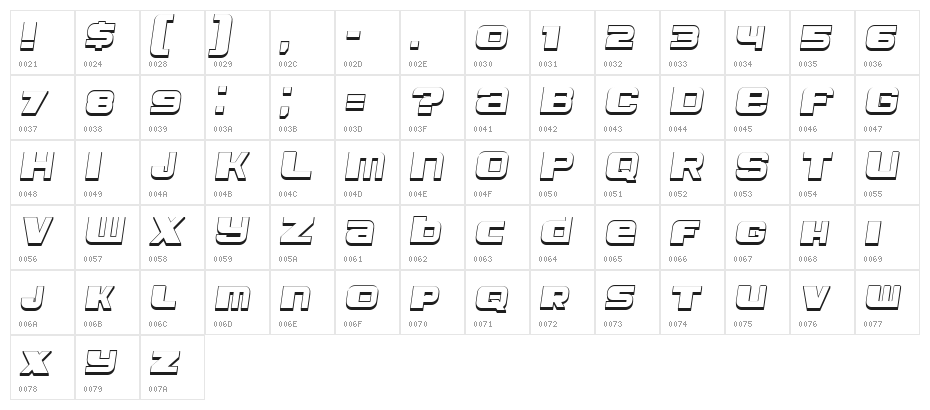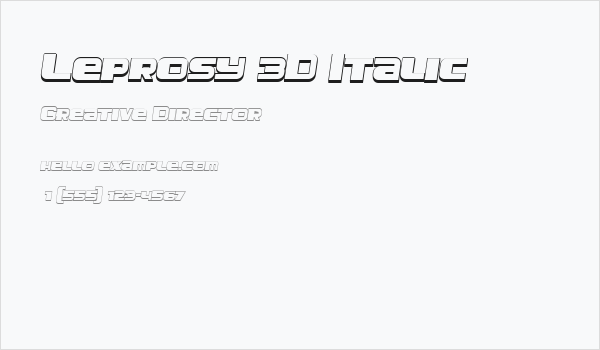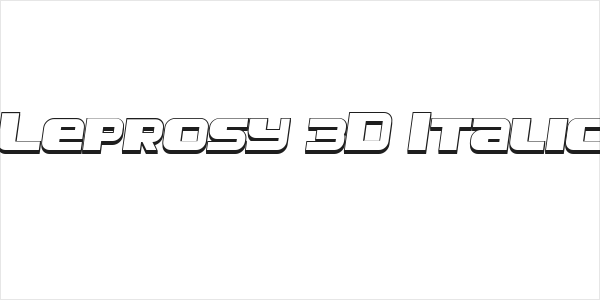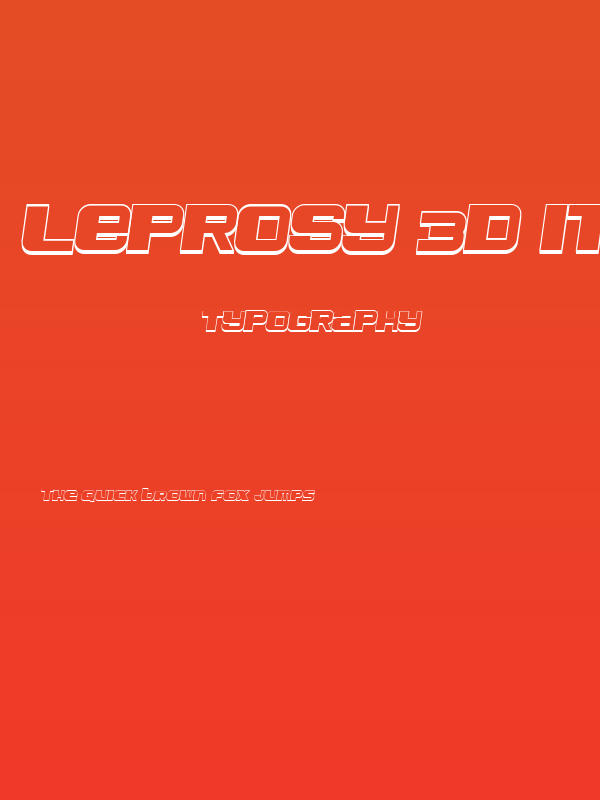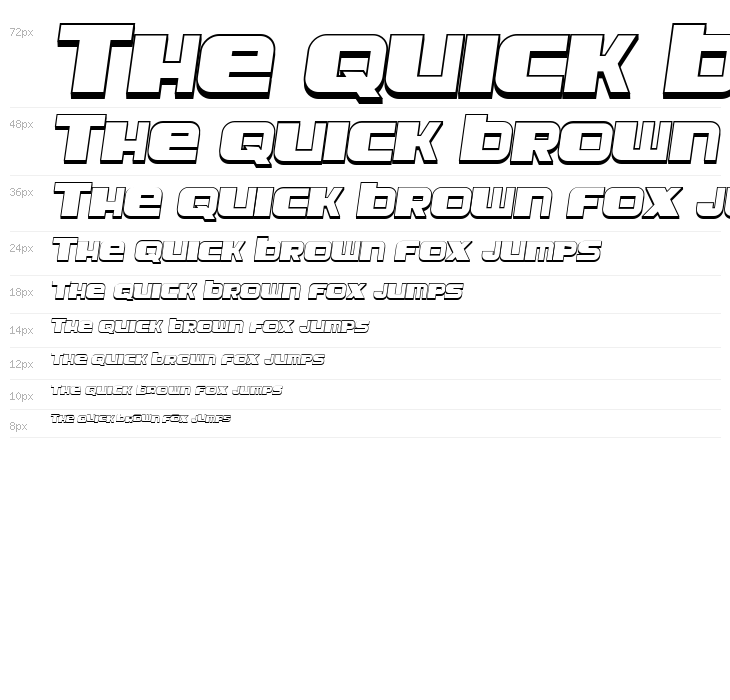
Leprosy 3D Italic Font
Leprosy 3D Italic Description
This font features a bold, three-dimensional appearance with a distinct italic slant, giving it a dynamic and futuristic look. The characters are outlined with a shadow effect that enhances the 3D illusion, making each letter appear as if it is popping off the page. The design is clean and geometric, with consistent stroke widths that maintain a uniform appearance across all characters. This style is particularly eye-catching and is well-suited for projects that require a modern and impactful visual statement.
| Overall Style | Futuristic, Modern |
| Proposed Projects | Ideal for video game titles, tech branding, futuristic posters, and sci-fi themed designs. |